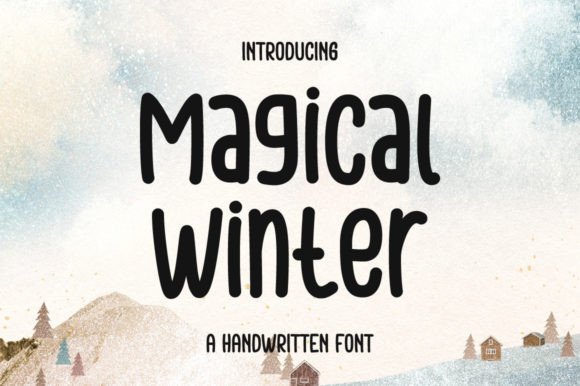
Welcome to the world of Magical Winter Font, a whimsical and enchanting display font that will sprinkle your designs with a touch of magic! Created by the talented Graphix Line Studio, Magical Winter is a delicate and simple-lettered font, making it the perfect choice for all your chalkboard quotes, teaching materials, and any project that demands a personal and realistic feel.
Step into a world of creativity and imagination with Magical Winter, where your kids' shirts will transform into enchanting canvases. This font was meticulously crafted with children in mind, featuring a playful and friendly design that will bring smiles to their faces. From T-shirts and onesies to hoodies and backpacks, Magical Winter will make every piece of clothing a vibrant expression of your child's unique personality.
With Magical Winter, your designs will radiate warmth and charm. Its soft curves and playful strokes evoke a sense of nostalgia and innocence, capturing the magical essence of childhood. Whether you're creating posters, cards, invitations, or social media posts, Magical Winter will add a touch of whimsy and wonder to your creations.
Unlock the boundless potential of Magical Winter and embark on a creative adventure like no other. Its versatility extends beyond chalkboard quotes and teaching materials. Use it to craft heartwarming logos, eye-catching headlines, and memorable branding elements that will leave a lasting impression on your audience.